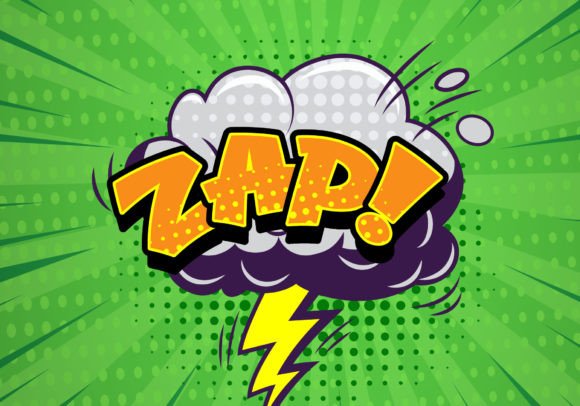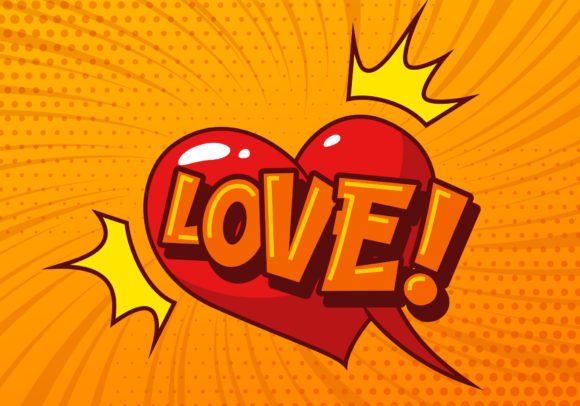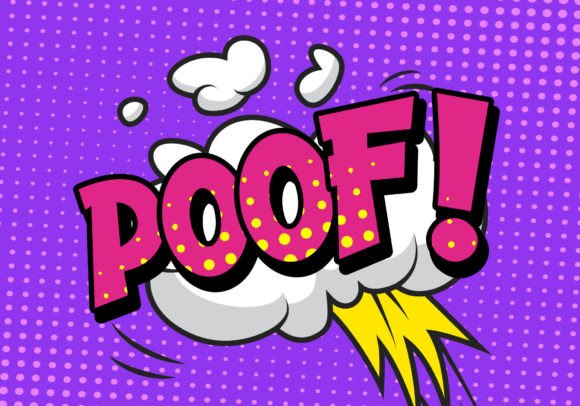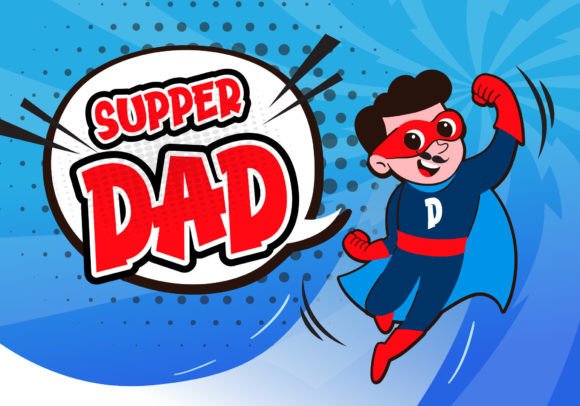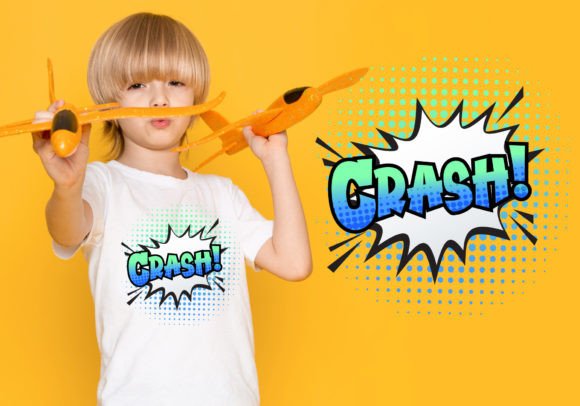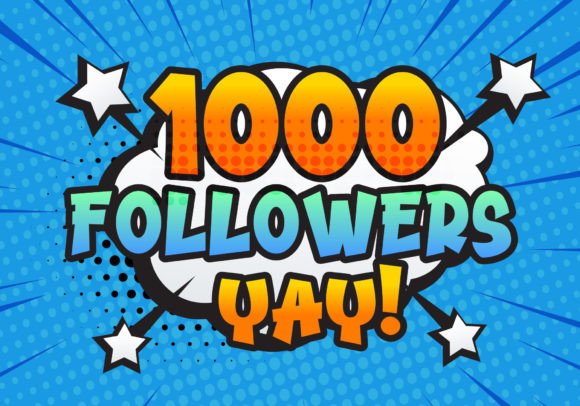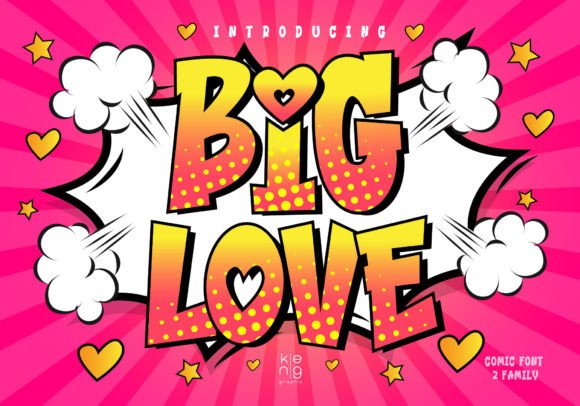
Introducing Big Love Font: The Ultimate Display Font for Bold and Eye-Catching Designs
Are you tired of using the same old fonts for your designs? Do you want to add a touch of youthfulness and courage to your projects? Look no further than Big Love Font, a display font with a comic style that’s sure to make your designs stand out. In this article, we’ll take a closer look at Big Love Font, its features, and how you can use it to take your designs to the next level.
What is Big Love Font?
Big Love Font is a display font with a comic style that’s designed to make a great impression. Its bold and playful design makes it perfect for projects that require a touch of youthfulness and courage. Whether you’re working on a comic book, online game, card, love shirt, poster, movie title, or social media post, Big Love Font is the perfect choice.
Key Features of Big Love Font
• Instantly Recognizable: Big Love Font is designed to grab attention and make your designs instantly recognizable. Its unique and bold design ensures that your message will stand out from the crowd.
• Comic Style: Big Love Font has a comic style that’s perfect for projects that require a playful and youthful touch. Its design is reminiscent of classic comic books, making it perfect for comic book-style designs.
• Versatile: Big Love Font is a versatile font that can be used for a wide range of projects, including online games, cards, love shirts, posters, movie titles, and social media posts.
• Easy to Read: Despite its bold design, Big Love Font is easy to read, making it perfect for projects that require a clear and concise message.
Benefits of Using Big Love Font
Using Big Love Font has several benefits, including:
• Increased Visibility: Big Love Font is designed to grab attention and increase visibility. Its bold design ensures that your message will stand out from the crowd.
• Youthful and Playful: Big Love Font adds a touch of youthfulness and playfulness to your designs, making it perfect for projects that require a fun and energetic vibe.
• Versatility: Big Love Font is a versatile font that can be used for a wide range of projects, making it a great addition to your font library.
Tips and Tricks for Using Big Love Font
Here are some tips and tricks for using Big Love Font:
• Use it Sparingly: Big Love Font is a bold font that’s best used sparingly. Use it for headings or titles to add emphasis and grab attention.
• Experiment with Colors: Big Love Font looks great in a variety of colors. Experiment with different colors to find the one that works best for your design.
• Pair it with Other Fonts: Big Love Font can be paired with other fonts to create a unique and interesting design. Experiment with different font combinations to find the one that works best for your project.
Big Love Font is a display font with a comic style that’s perfect for projects that require a touch of youthfulness and courage. Its bold and playful design makes it instantly recognizable and perfect for grabbing attention. With its versatility, ease of use, and range of benefits, Big Love Font is a great addition to any designer’s font library. So why not give it a try and see how it can take your designs to the next level?